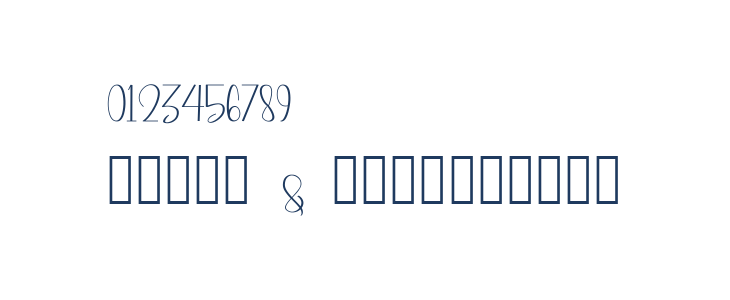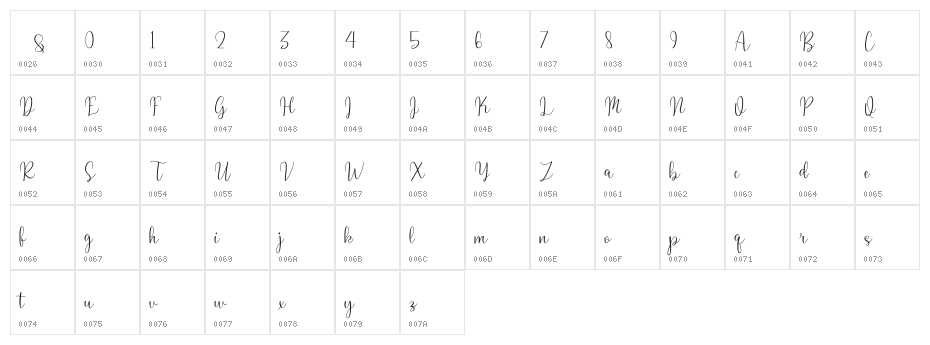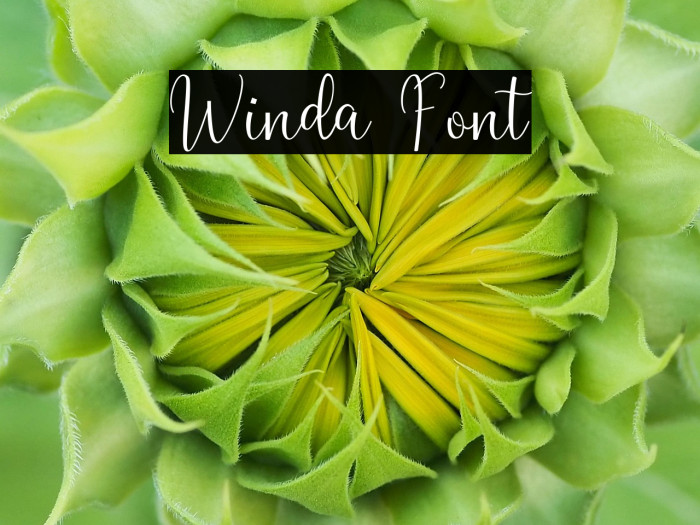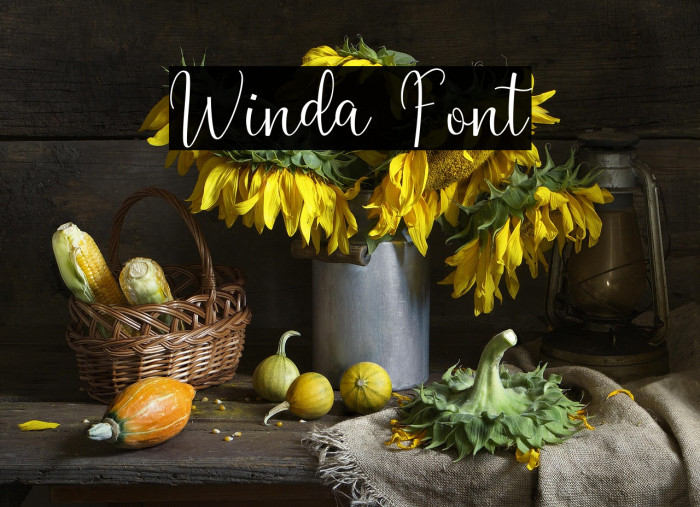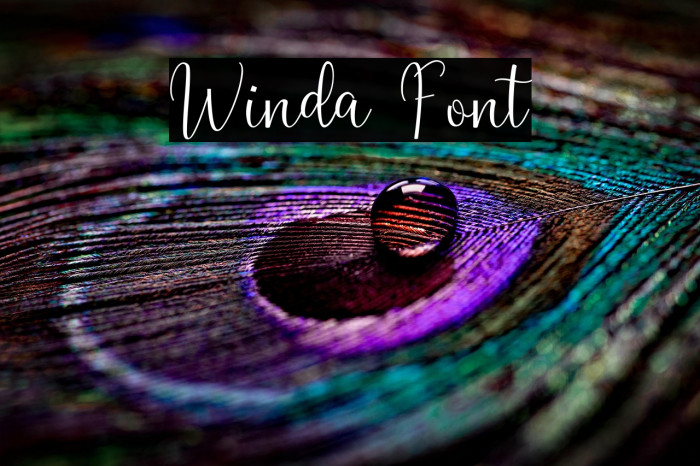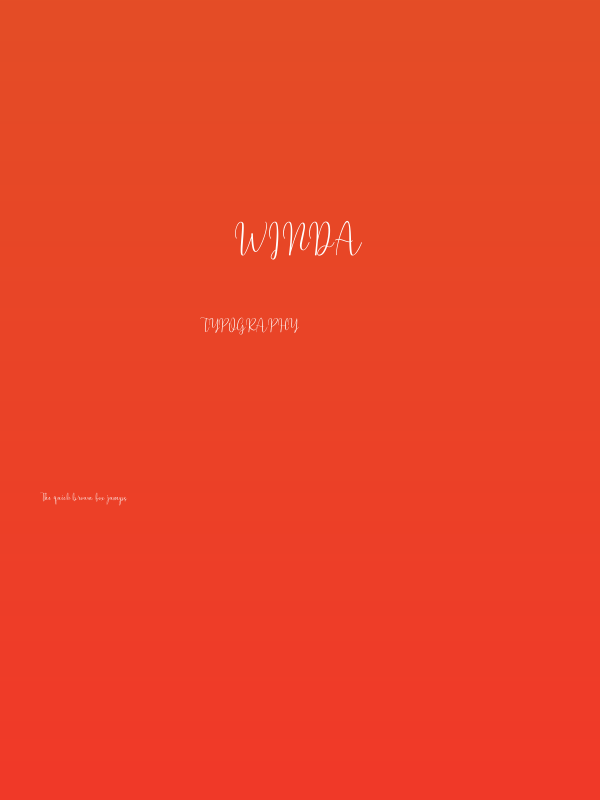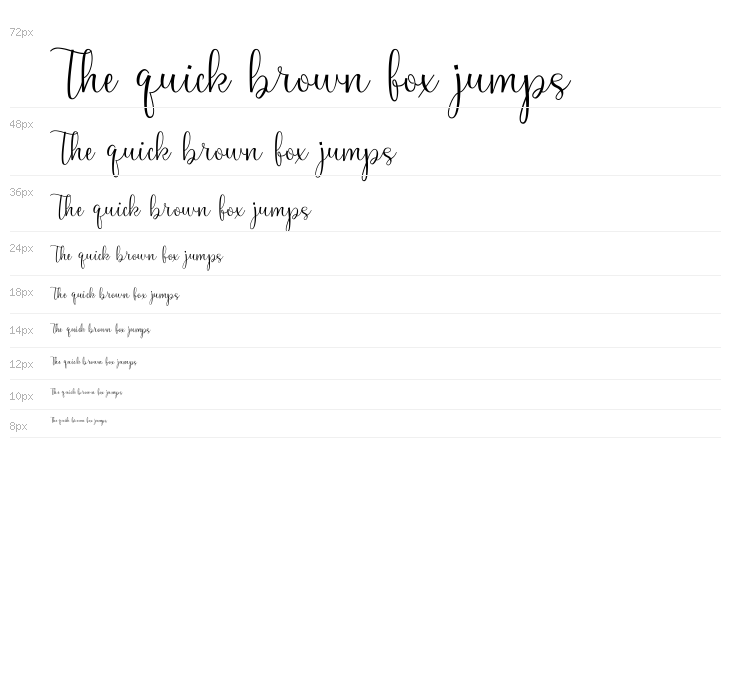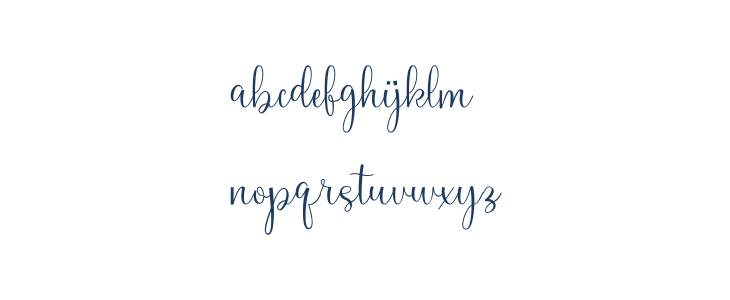
Winda Font
Winda Description
This font features an elegant and flowing script style, characterized by its smooth, cursive letterforms that evoke a sense of sophistication and grace. The uppercase letters are tall and slightly slanted, with delicate curves and loops that add a touch of flair. The lowercase letters maintain a consistent flow, with some letters featuring subtle flourishes that enhance the overall aesthetic. The numerals are distinct and maintain the script style, ensuring cohesion throughout. This font is ideal for projects that require a personal, handwritten touch, such as invitations, greeting cards, and branding materials.
| Use Case | Invitations, Greeting cards, Branding |
| Proposed Projects | Ideal for wedding invitations, greeting cards, personal branding, and elegant packaging designs. |